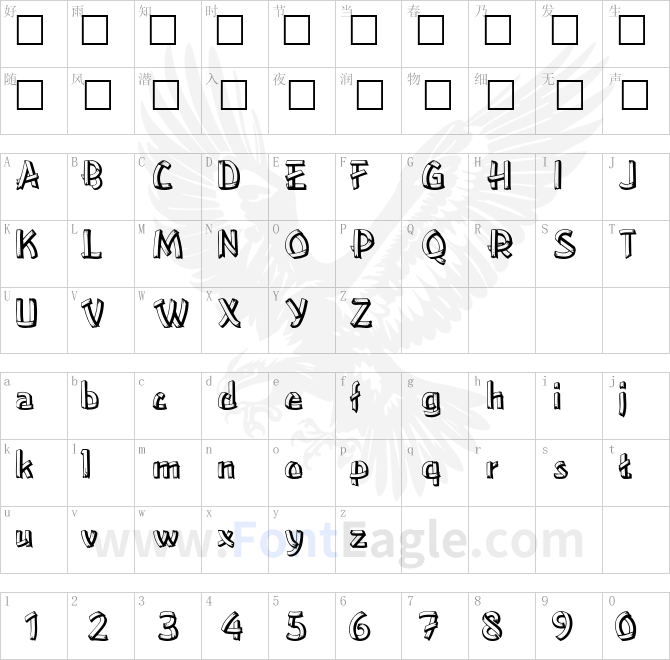
- Font name:LowEa
- Font Subfamily ID:Altsys Metamorphosis:LowEa Regular
- Font Full Name:LowEa Regular
- Font Version:Altsys Metamorphosis:3/6/92
- Postscript:LowEa Regular
- Font Copyright:LowerEastSide Type 1 font 1990 by David Rakowski. Alle Rechte Vorhalten.